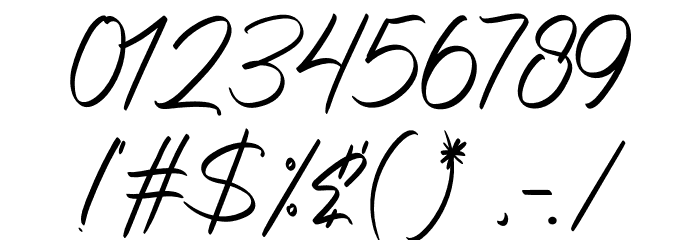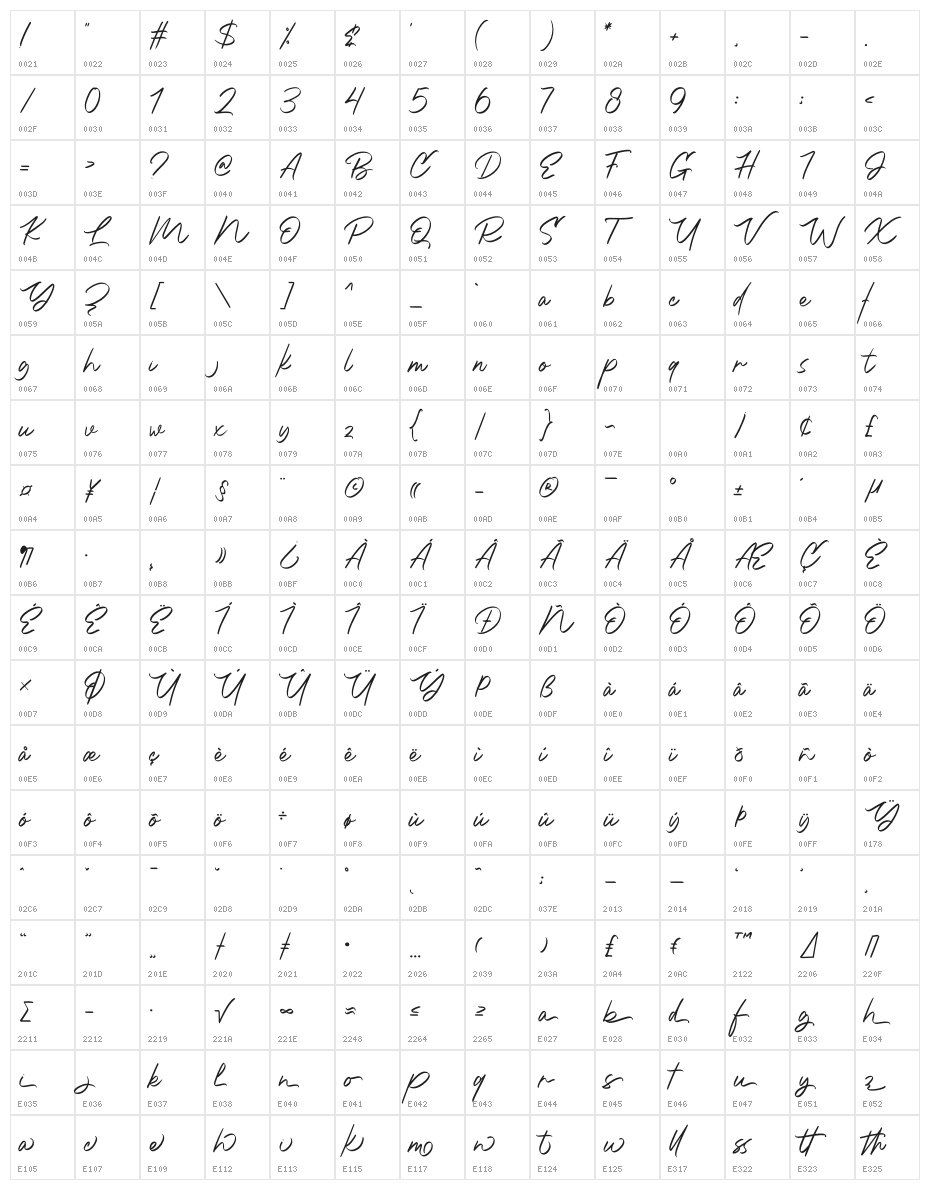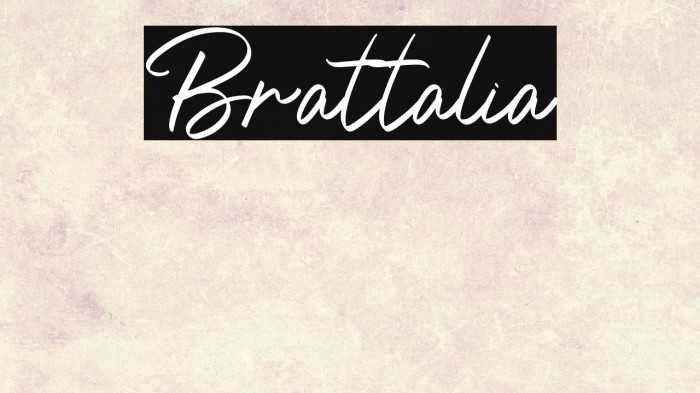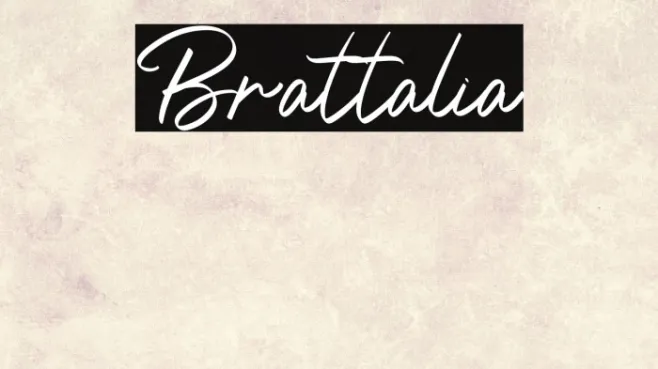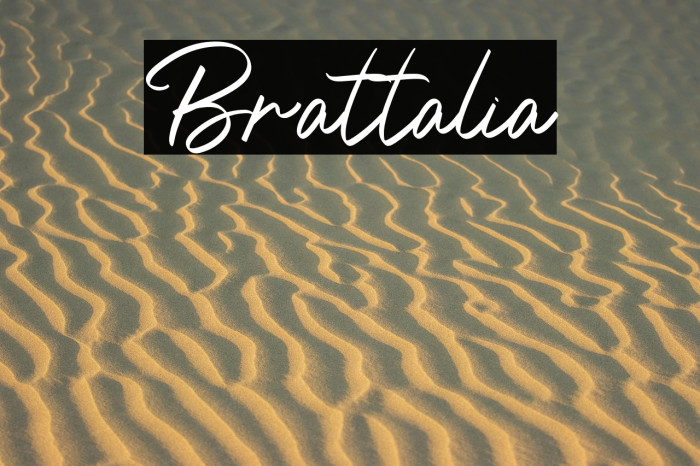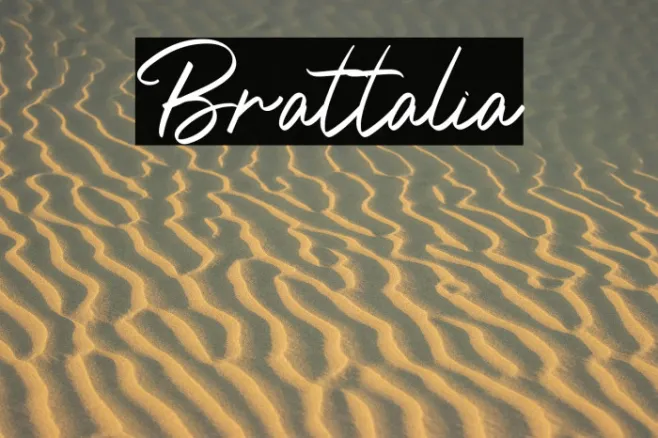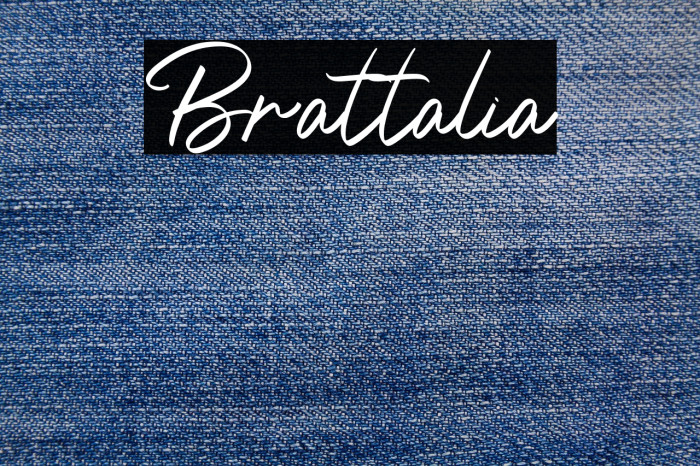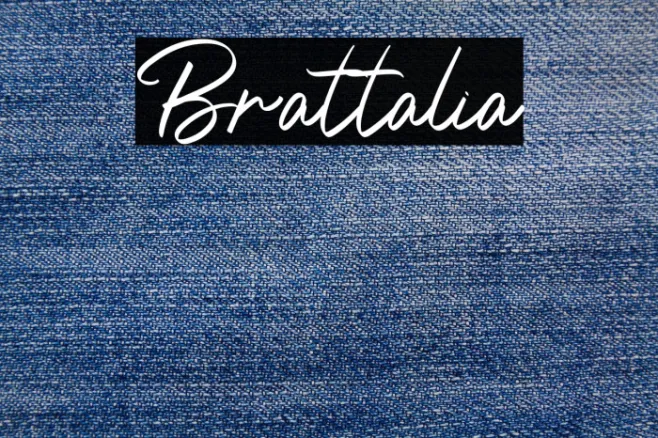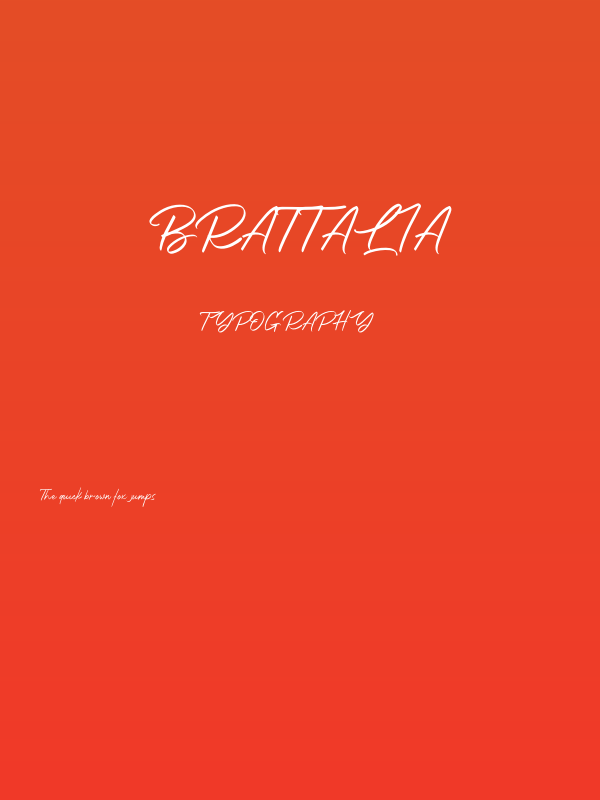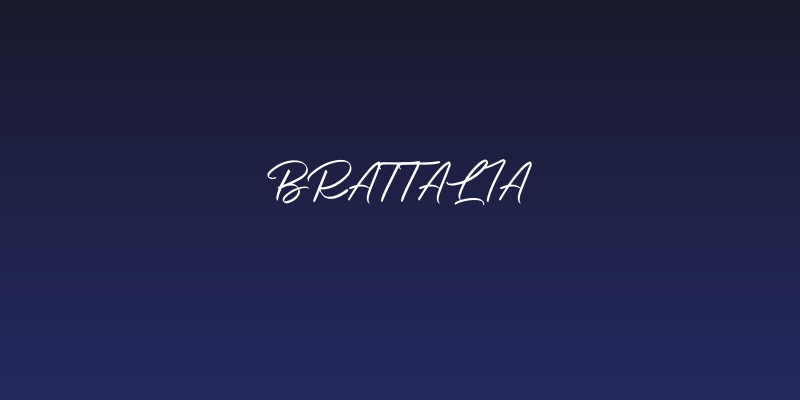
Brattalia Font
Brattalia Description
This font exudes a dynamic and expressive style, characterized by its fluid, cursive script that mimics natural handwriting. The strokes are smooth and connected, giving it an elegant yet casual appearance. The uppercase letters maintain a consistent height, while the lowercase letters feature a slight slant, enhancing the handwritten feel. Numbers and special characters are crafted with the same flowing style, ensuring uniformity across all elements. The overall design is both stylish and approachable, making it suitable for a variety of creative applications.
| Proposed Projects | Ideal for wedding invitations, greeting cards, personal branding, and creative projects that require a personal touch. |